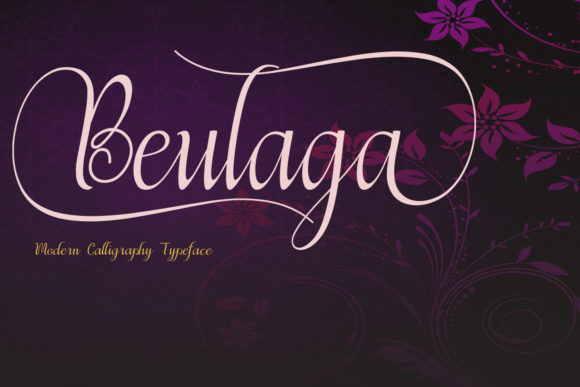
The Ultimate Guide to Beulaga Font: Elevate Your Designs with Bold Swashes
I’ll never forget the moment I stumbled upon the Beulaga font. I was working on a branding project for a trendy boutique, and I was struggling to find the perfect font that would capture the essence of the brand. The client wanted something fun, bold, and eye-catching, but I was coming up blank. That’s when I discovered Beulaga, and it instantly fell into place. The bold swashes and playful vibe of this handwritten font won me over, and I knew I had found the perfect fit.
An Honest Review of Beulaga Font
• ✨ **Unique and playful design**: Beulaga’s bold swashes and handwritten style make it a standout in any design project.
• ✅ **Highly versatile**: This font can be used for a wide range of projects, from branding and advertising to crafting and DIY tutorials.
• 💫 **Easy to read**: Despite its bold and playful design, Beulaga is surprisingly easy to read, making it perfect for body text and headlines.
While Beulaga is an amazing font, there are a few things to keep in mind:
• 🤔 **Limited use in formal designs**: Beulaga’s playful style may not be suitable for formal or professional designs, such as corporate reports or academic papers.
• ⚠️ **Glyph compatibility**: Some glyphs or special characters may not work seamlessly with all platforms or software.
A Practical Guide to Using Beulaga Font
3. Experiment with OpenType features, such as swashes and stylistic alternates, to add visual interest to your text.
The Story Behind Beulaga Font
Beulaga was designed by a talented type designer who wanted to create a font that would add a touch of playfulness and whimsy to any design project. Inspired by traditional handwriting and calligraphy, Beulaga features bold swashes and a unique, handwritten style.
Q: What type of designs is Beulaga best suited for?
A: Beulaga is perfect for creative projects, such as branding, advertising, crafting, and DIY tutorials.